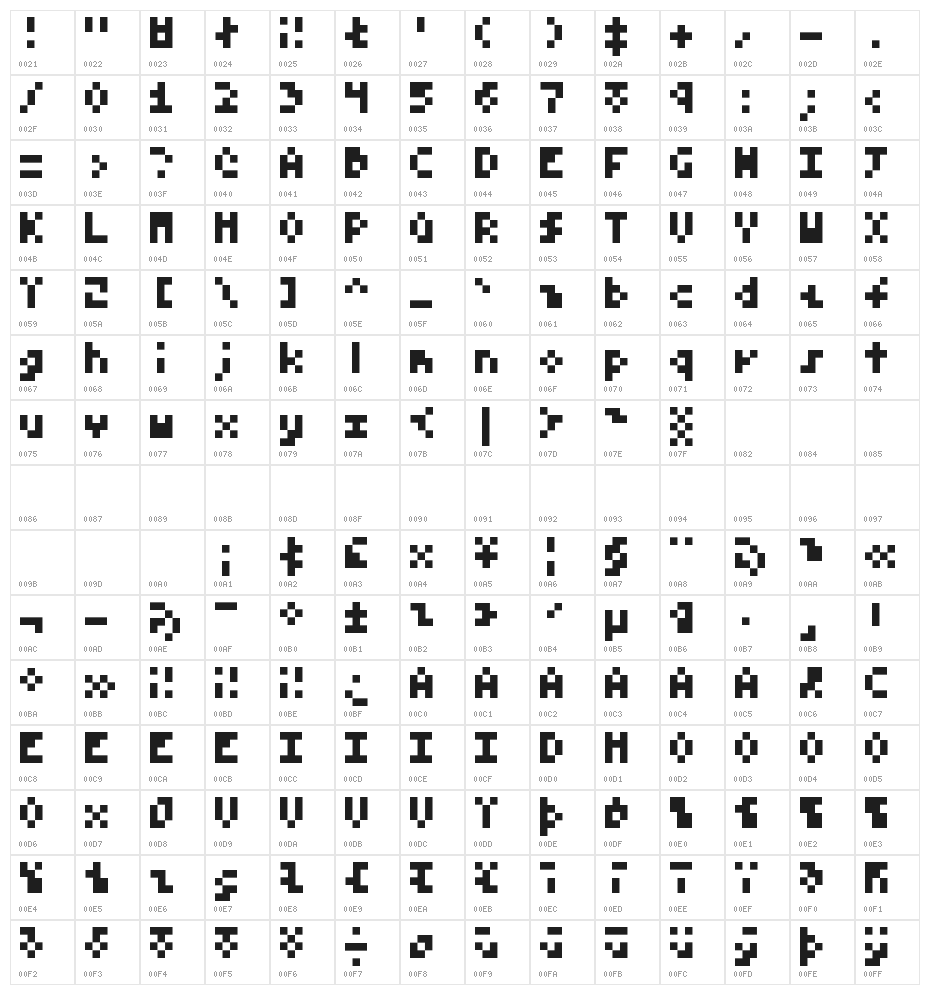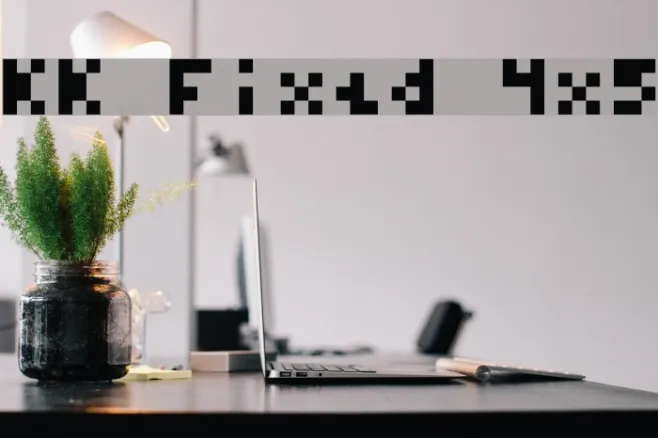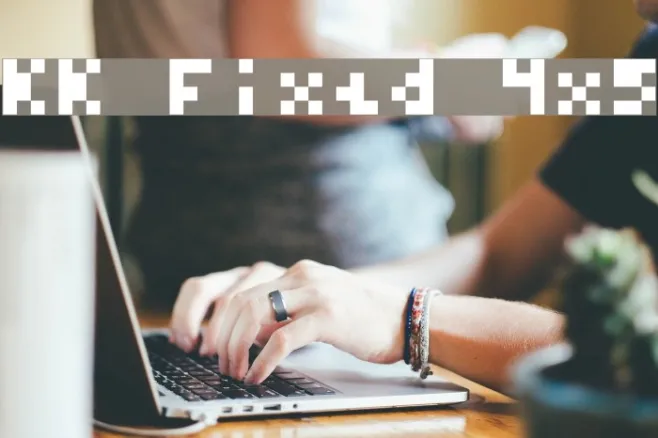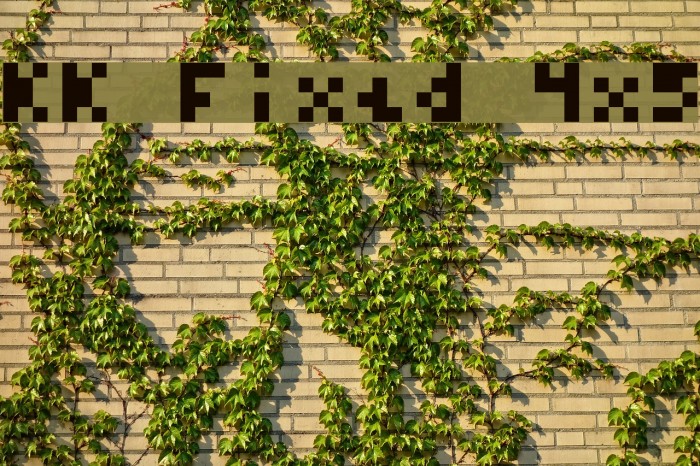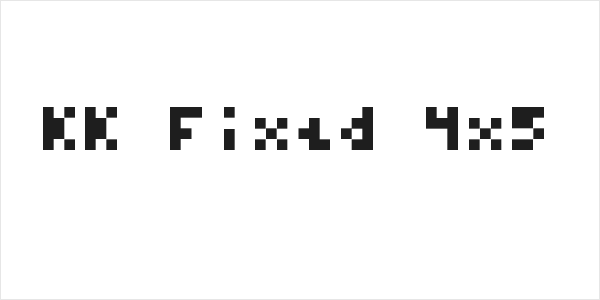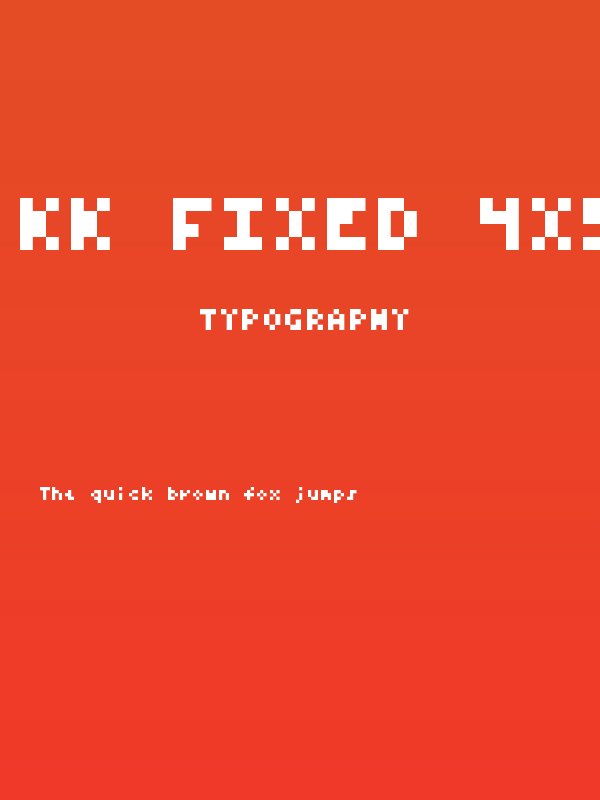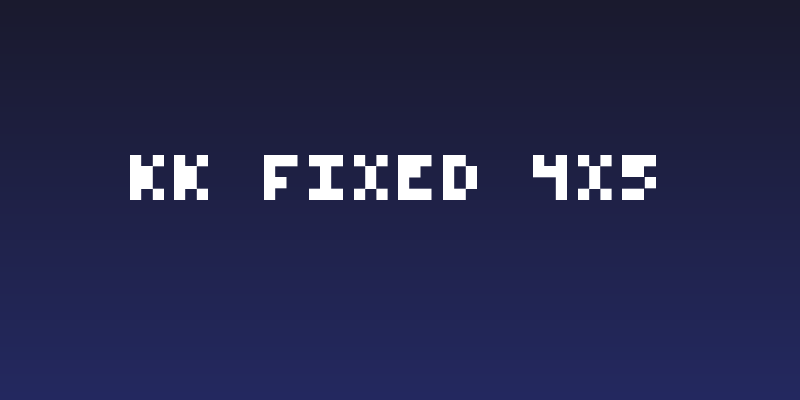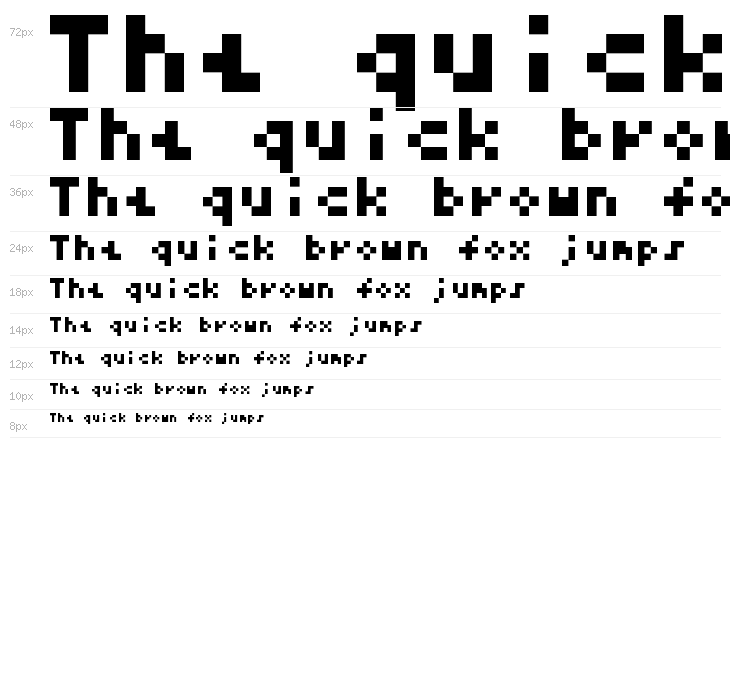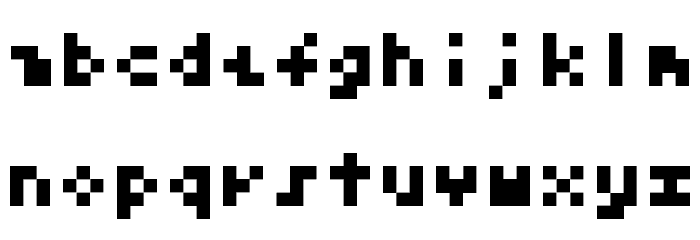
KK Fixed 4x5 Font
KK Fixed 4x5 Description
This font features a pixelated, monospaced design reminiscent of early computer and video game graphics. Each character is constructed with a uniform grid of pixels, giving it a blocky and retro appearance. The uppercase and lowercase letters maintain a consistent height, while the numbers and special characters follow the same pixelated style. The font's simplicity and uniformity make it ideal for digital displays and projects that aim to evoke a sense of nostalgia or a retro aesthetic. Its clear and bold presentation ensures readability even at smaller sizes, making it versatile for various digital applications.
| Overall Style | Retro |
| Use Case | Headlines, Digital displays, Coding |
| Proposed Projects | Ideal for retro video games, digital art projects, coding environments, and any design work that requires a nostalgic or digital theme. |